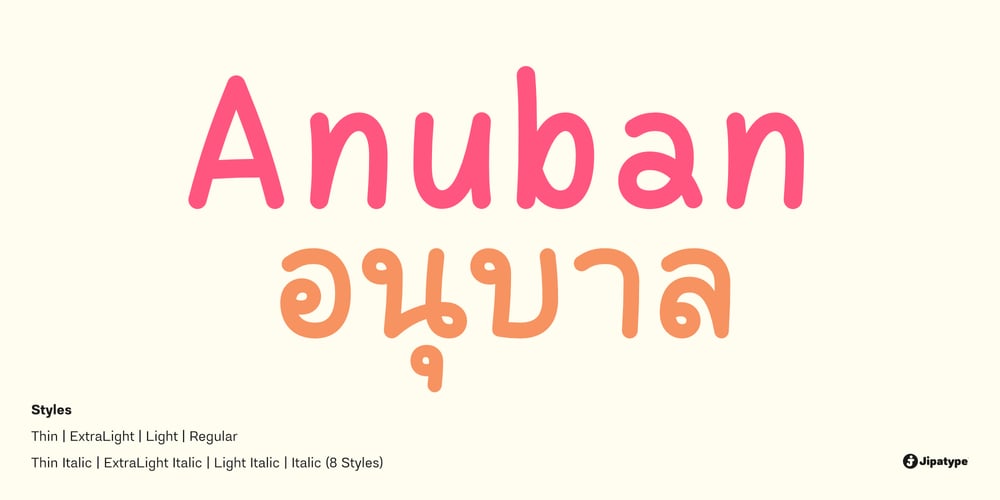
Anuban Font Family was designed by Anupap Jaichumnan and published by Jipatype. Anuban contains 8 styles and family package options. Anuban is a typeface designed to mimic handwriting. Instead of being written by hand, this font is created using pen tool. The result gives the impression of carefully crafted handwriting, similar to a kindergarten student’s neat writing practice. This font comes in 8 styles, ranging from the thin to regular weight, and supports both Latin 1 and Thai characters. Anuban is ideal for use in media that aims to convey a friendly, informal, and relaxed tone, such as designs for children, posters, cards, or promotional materials that seek to evoke a soft and welcoming feeling.